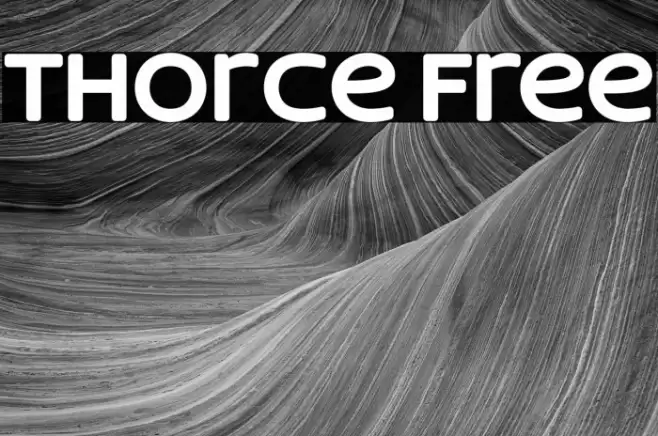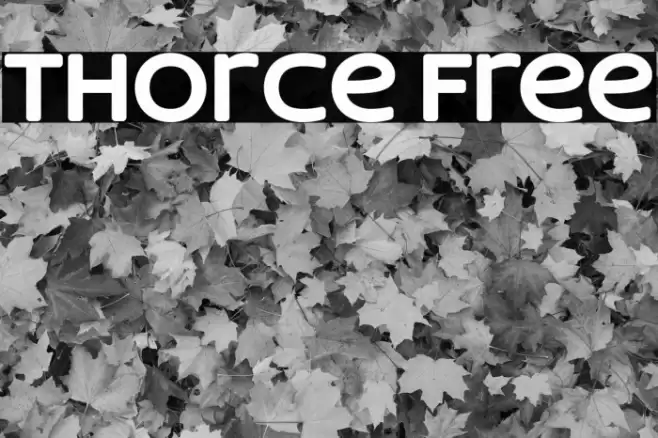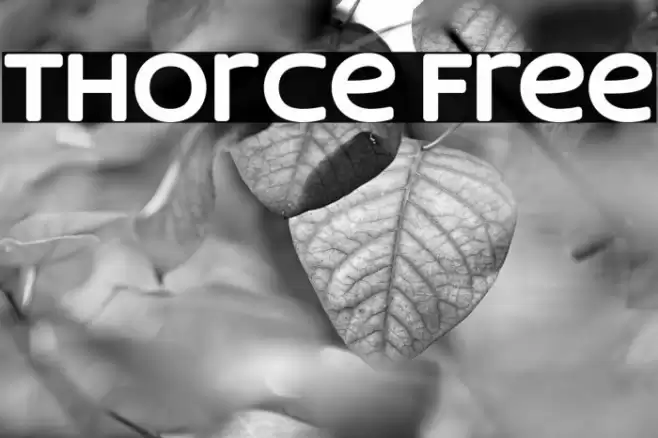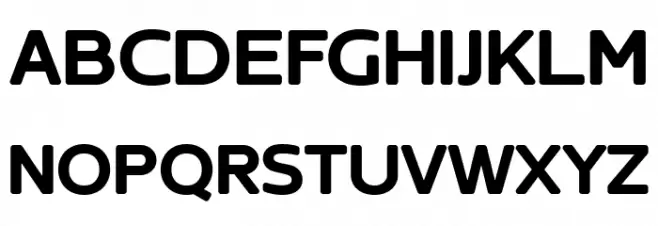
Thorce Free Font
Thorce Free Description
This font features a modern and clean sans-serif style with rounded edges, giving it a friendly and approachable appearance. The characters are uniform in width, contributing to a balanced and harmonious look. The uppercase and lowercase letters maintain consistent proportions, enhancing readability. The font's design is versatile, suitable for various applications, from digital interfaces to print media. Its simplicity and clarity make it ideal for conveying information effectively, while the rounded elements add a touch of warmth and personality.
A modern, rounded sans-serif font with a clean and approachable style from Regular fonts.
- Proposed Projects: Ideal for branding, web design, user interfaces, and educational materials.